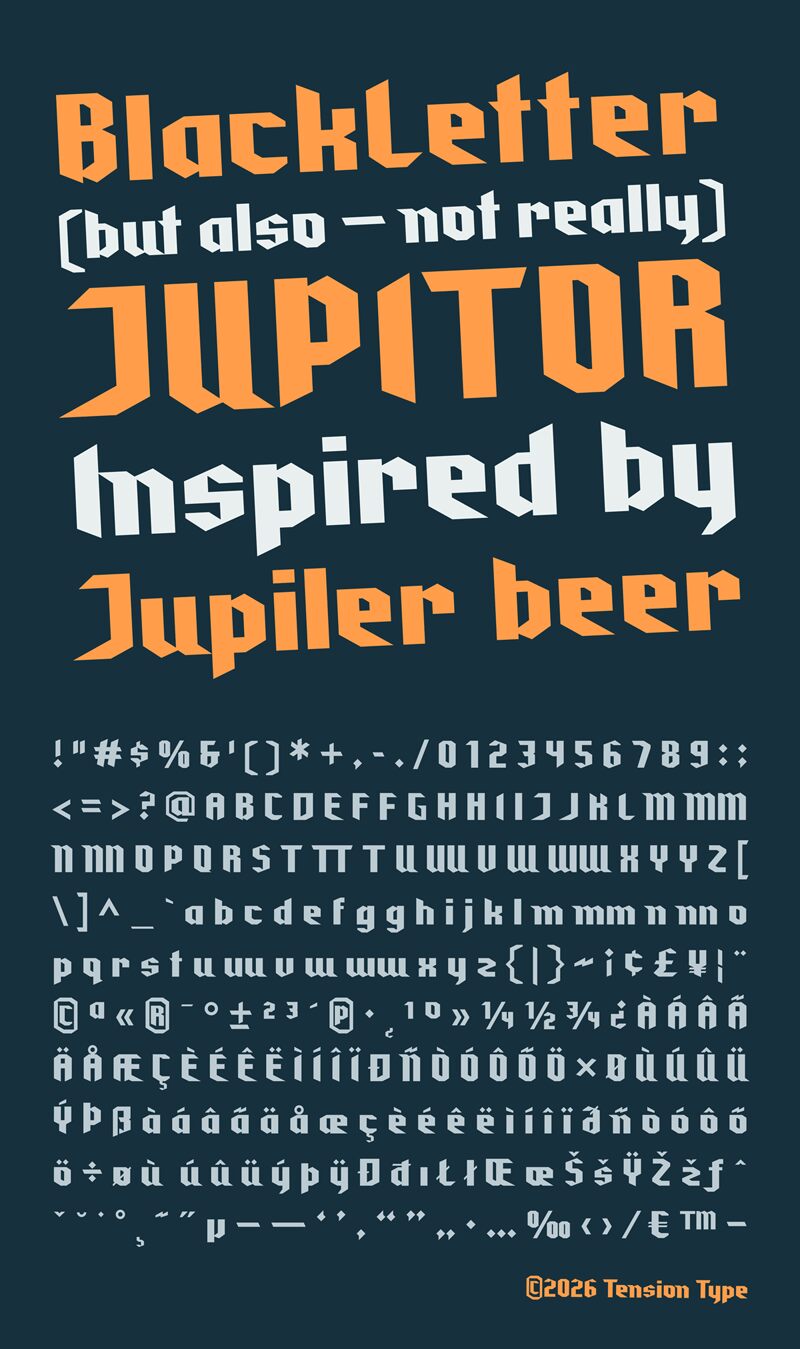
Jupitor font designed by Tension Type is a free Gothic font with a strong impact. The angular typeface has a bold appearance that will not go unnoticed and a dynamic flow that insists on being perceived. This modern interpretation hints at the industrial vibes through its geometric shapes and sharp edges. A truly strong impact is the impression left by this font.
With its contemporary twist, Jupitor can be used to design posters, banners, book covers, vinyl covers, illustrations, wall art, typography art, packaging, product design, and stickers. Use it to create visuals for information or to simply make a statement with artistic works.
Jupitor is a unique typeface inspired by the six letters featured in the original Jupiler Beer logo. As no similar typeface was available, I decided to develop this distinctive font. Enjoy the versatility and charm of this free font for your design projects.